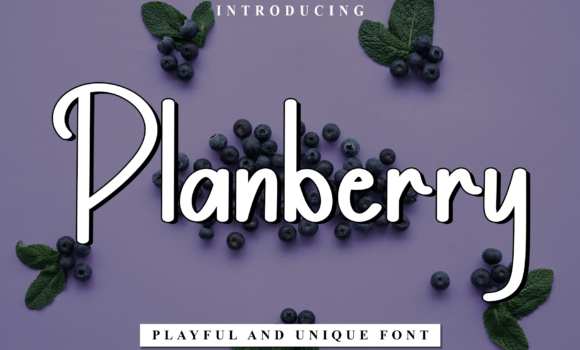
Planberry Font – Free Download Introduction to Planberry Font Planberry is a minimal and neat font. 📸 Preview Gallery 5 images 📌 Product Name Planberry Font 👤 Author Black line 📂 Category Explore ⬇️ Download Planberry Font FREE Free Download